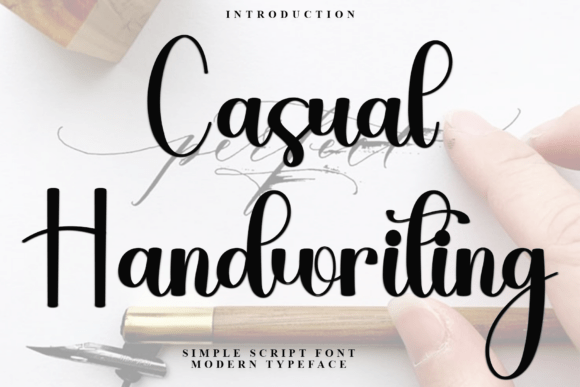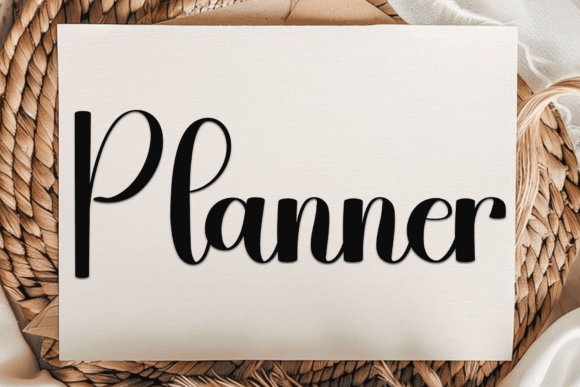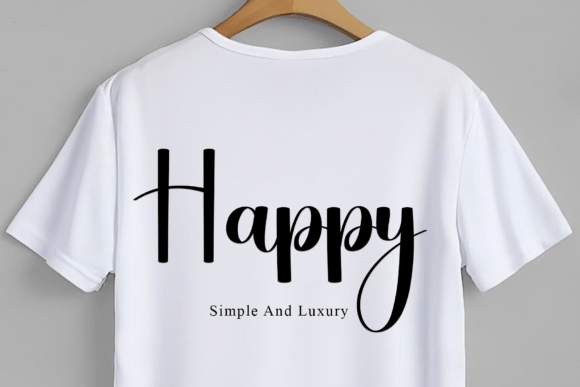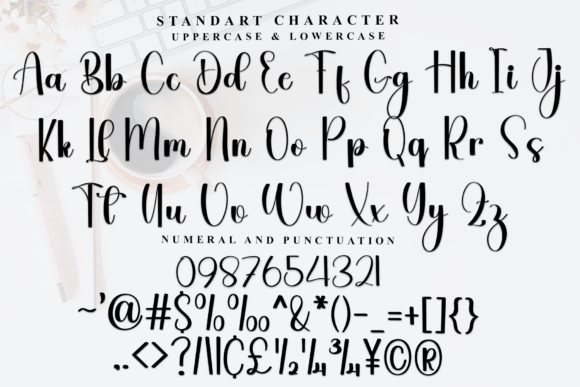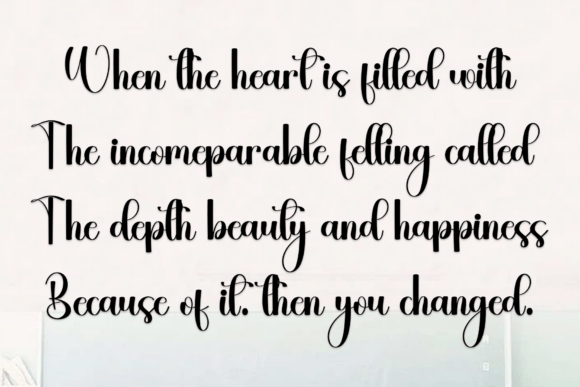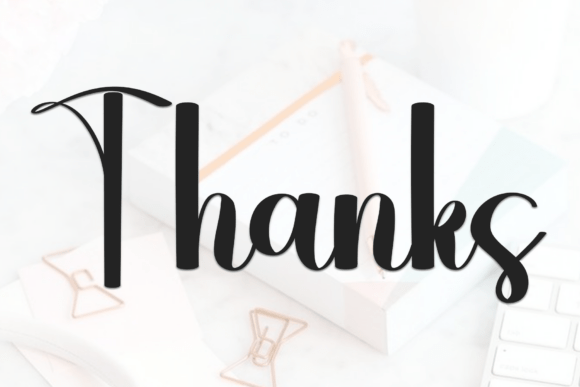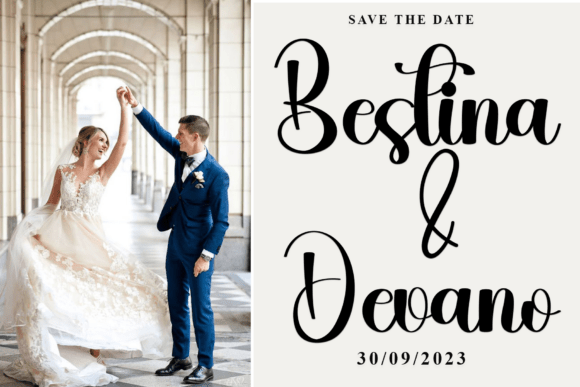
The Magic of the Holiday Season in Typography
There’s something special about sitting down with a cup of hot cocoa, surrounded by twinkling lights, and creating holiday cards for loved ones. The feel of the pen gliding across the paper, the sound of the pen scratching out festive messages – it’s a moment that never fails to get us in the holiday spirit. And, of course, the perfect font can make all the difference in capturing that magic.
Enter the Casual Handwriting Font, a merry and whimsical typeface that’s sure to add a touch of enchantment to your holiday designs. With its decorative elements and festive flair, this font is perfect for greeting cards, gift tags, and other holiday-themed projects. Whether you’re a seasoned designer or a crafting enthusiast, the Casual Handwriting Font is a valuable addition to your toolkit – and its PUA encoding makes it a breeze to use.
Casual Handwriting Font Key Features
- Unique Characteristics: Authentic, handwritten feel with subtle imperfections and variations in line width, creating a natural and expressive look.
- Language Support: Comprehensive support for multiple languages, including Latin, Cyrillic, and Greek scripts, making it suitable for global design projects.
- Kerning and Ligatures: Advanced kerning and ligature features ensure smooth text flow and aesthetically pleasing letter combinations.
Casual Handwriting Font Review
First of all, I have to say that I really like the personality of this font. It’s got a very relaxed, approachable vibe that’s perfect for casual designs, like social media posts or blog headers. ✨ The subtle imperfections and variations in letterform make it feel very organic and hand-written, which is exactly what I’m looking for in a font like this.
One of the things that works well for this font is its versatility. It comes in a range of weights, from light to bold, which makes it easy to use in a variety of design contexts. ✨ I’ve also found it to be very readable, even at smaller font sizes.
- ⚠️ While the font is great for casual designs, it may not be the best choice for formal or professional projects, as it can come across as a bit too informal.
- ⚠️ The font may also be a bit too ornate for some designs, particularly those that require a lot of text.
Overall, I think this font is a great addition to any designer’s toolkit. It’s perfect for projects that need a relaxed, approachable vibe, and it’s easy to use in a variety of design contexts. Just be aware of its limitations, and use it wisely!
The Casual Handwriting Font is ideal for creative projects such as:
- Birthday cards and invitations
- Wedding stationery and invitations
- Blog posts and social media graphics
- Marketing materials and flyers
To get the most out of the Casual Handwriting Font, try combining it with other creative elements such as illustrations and graphics.